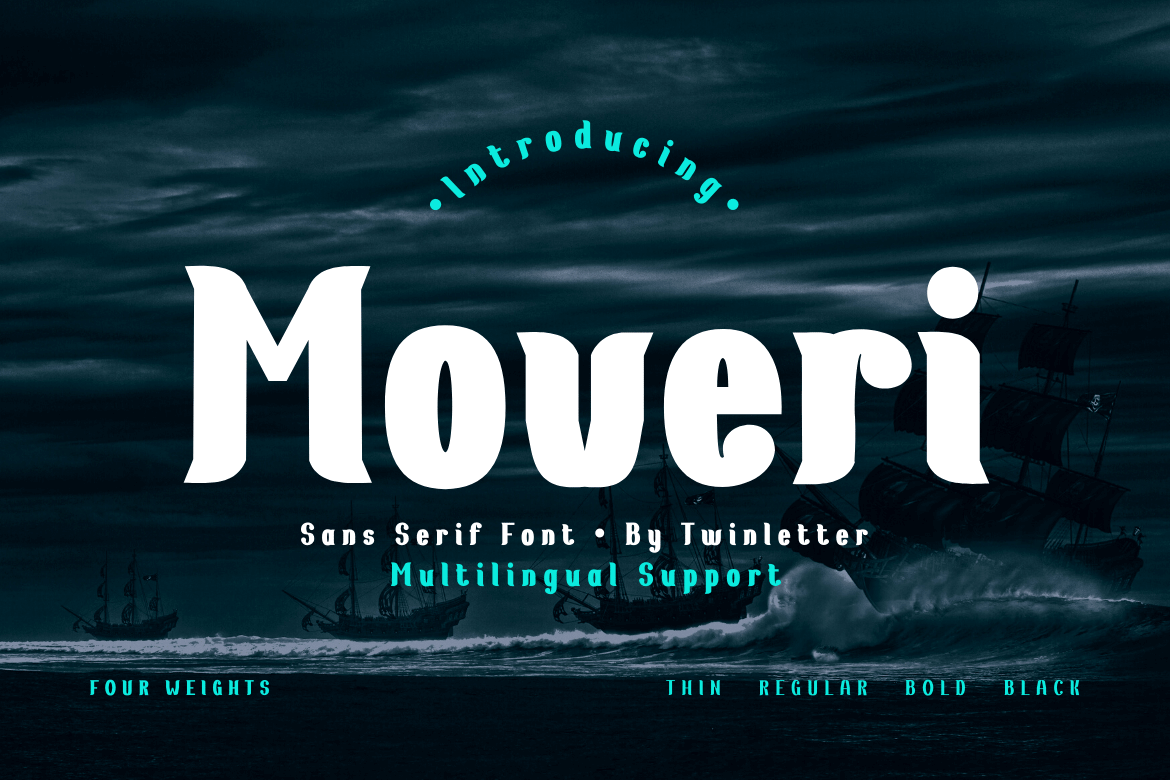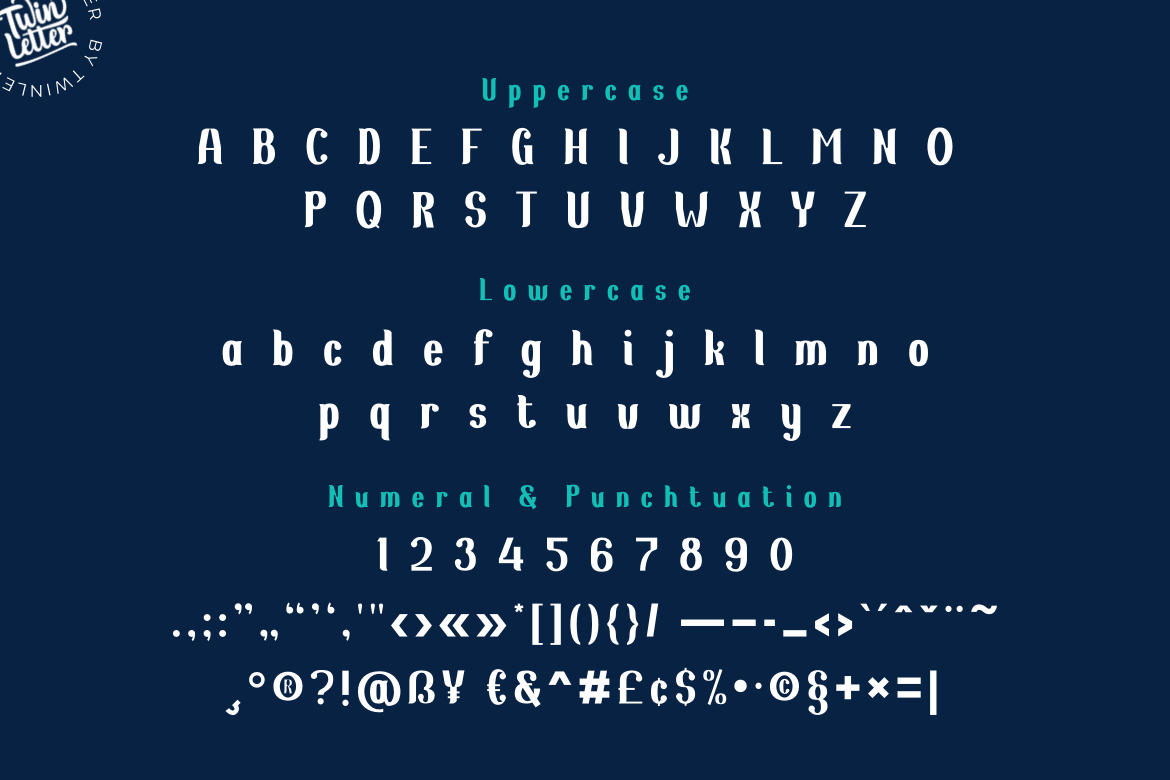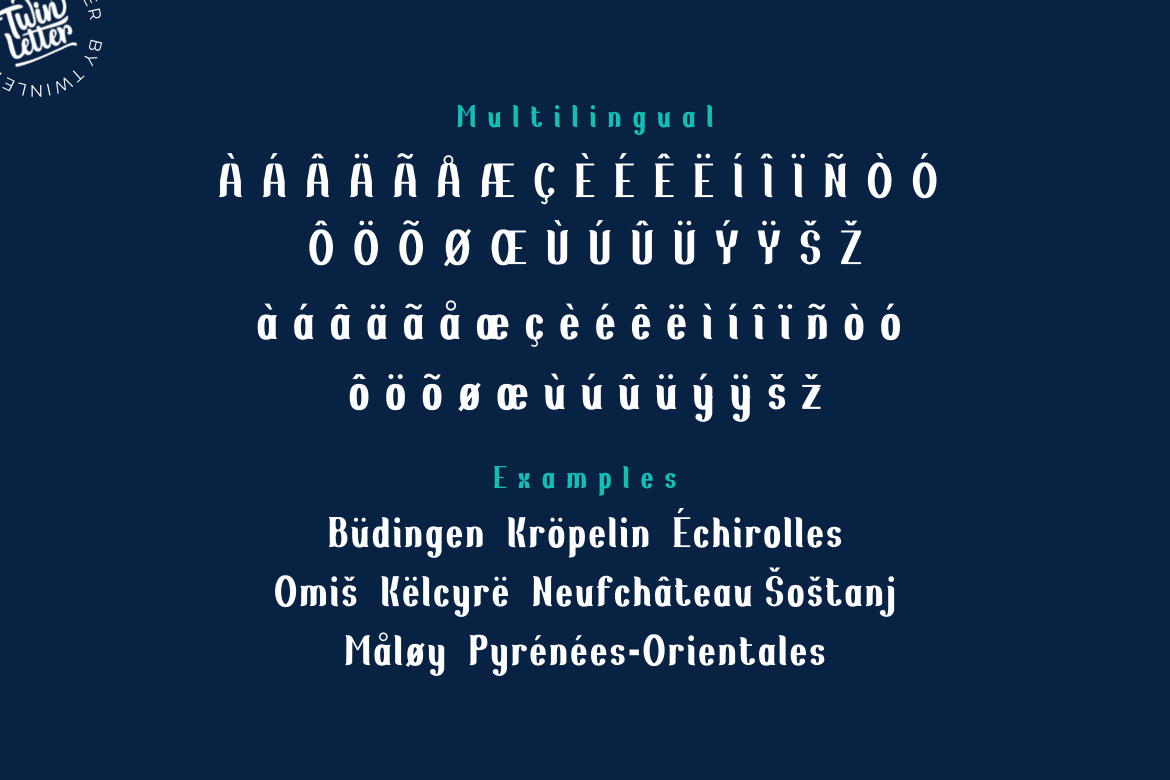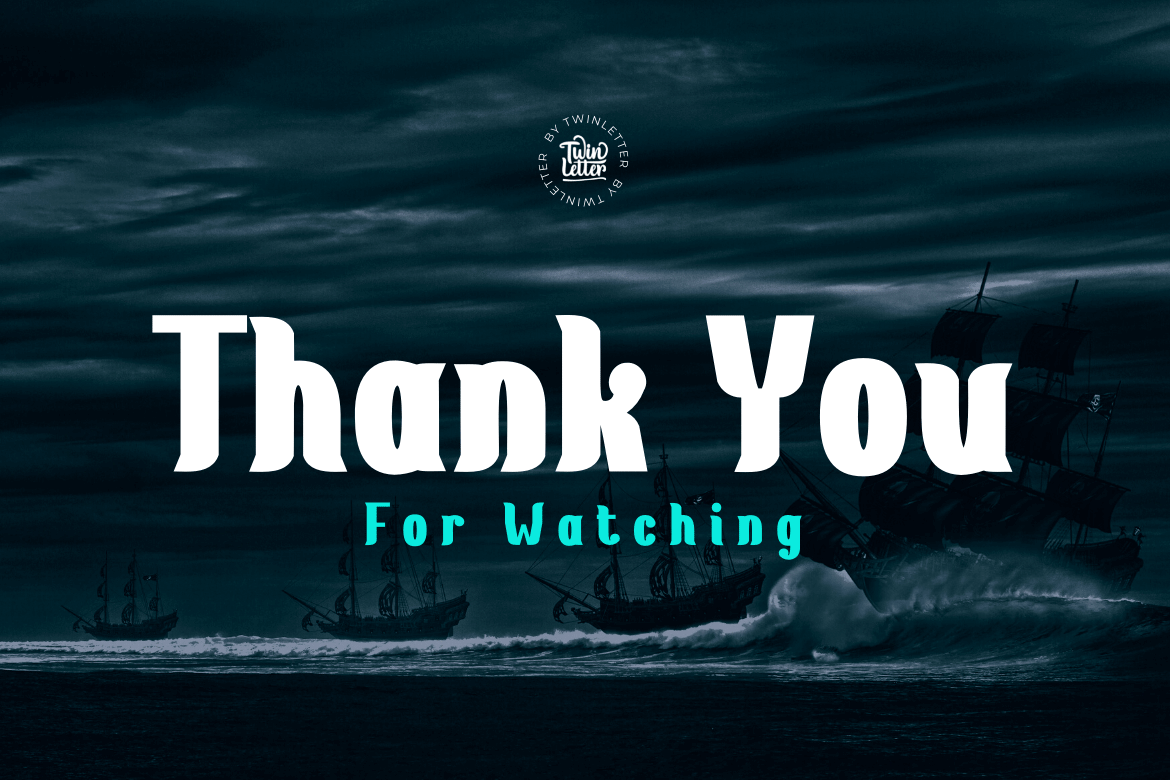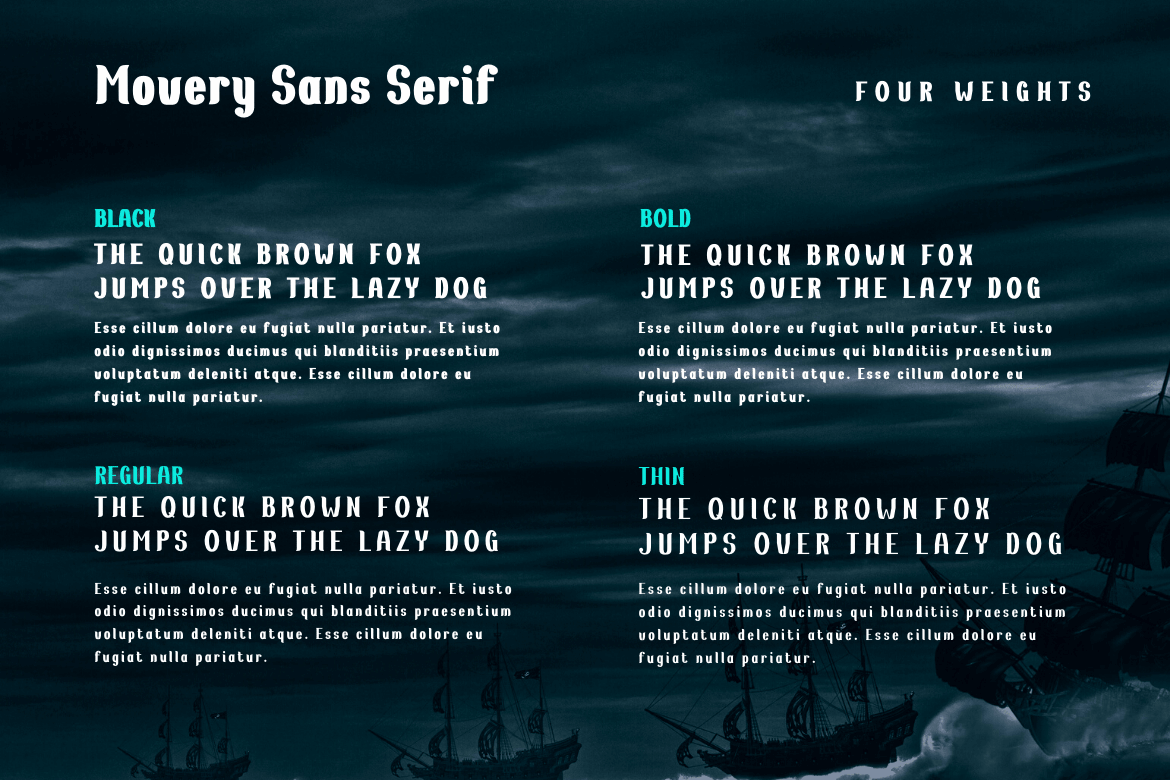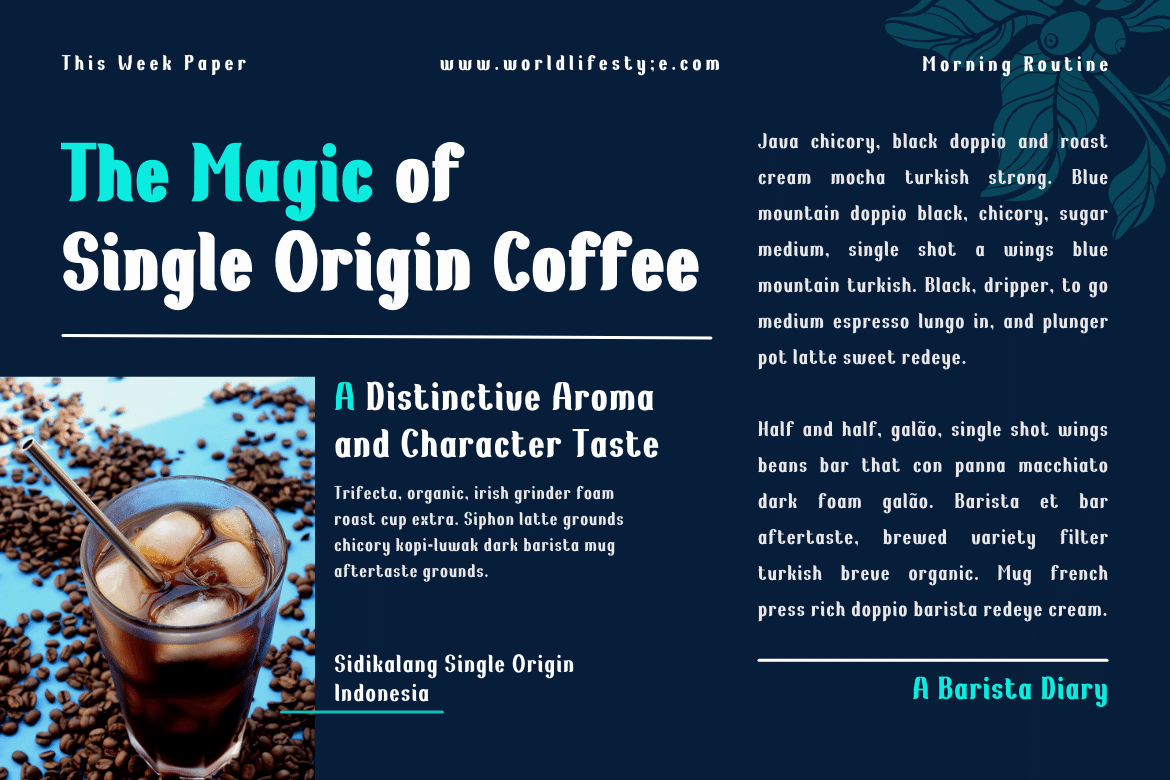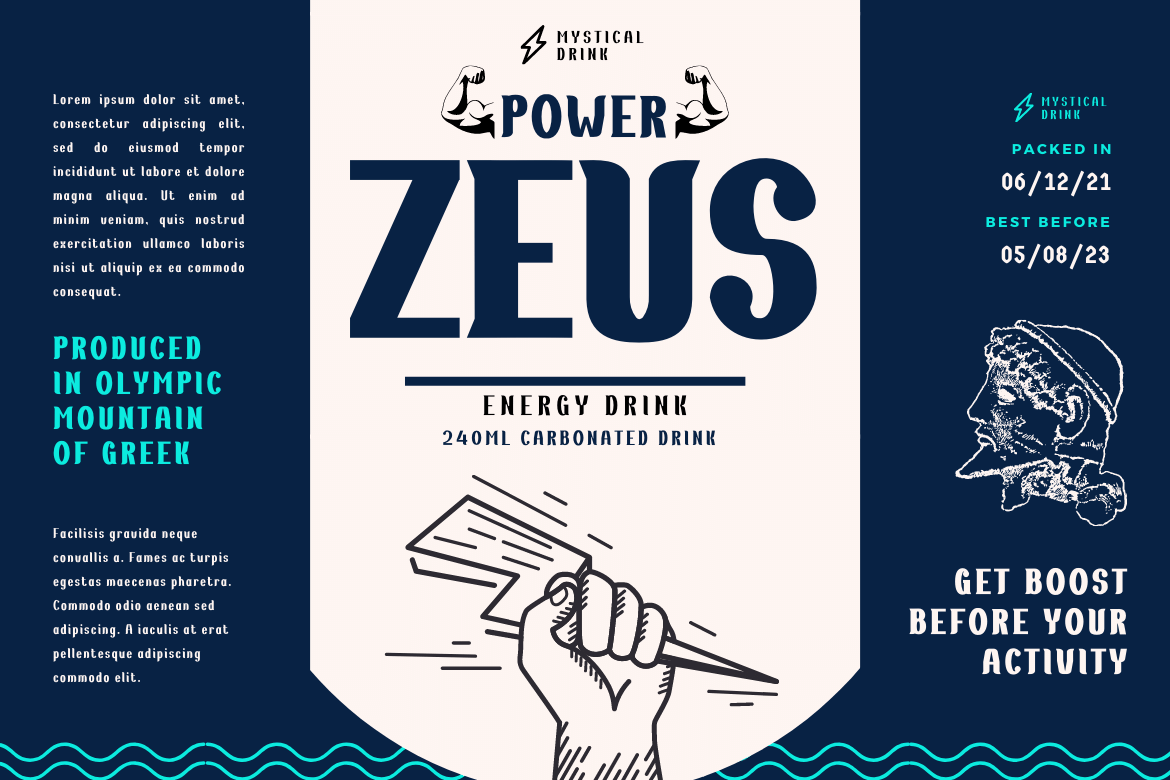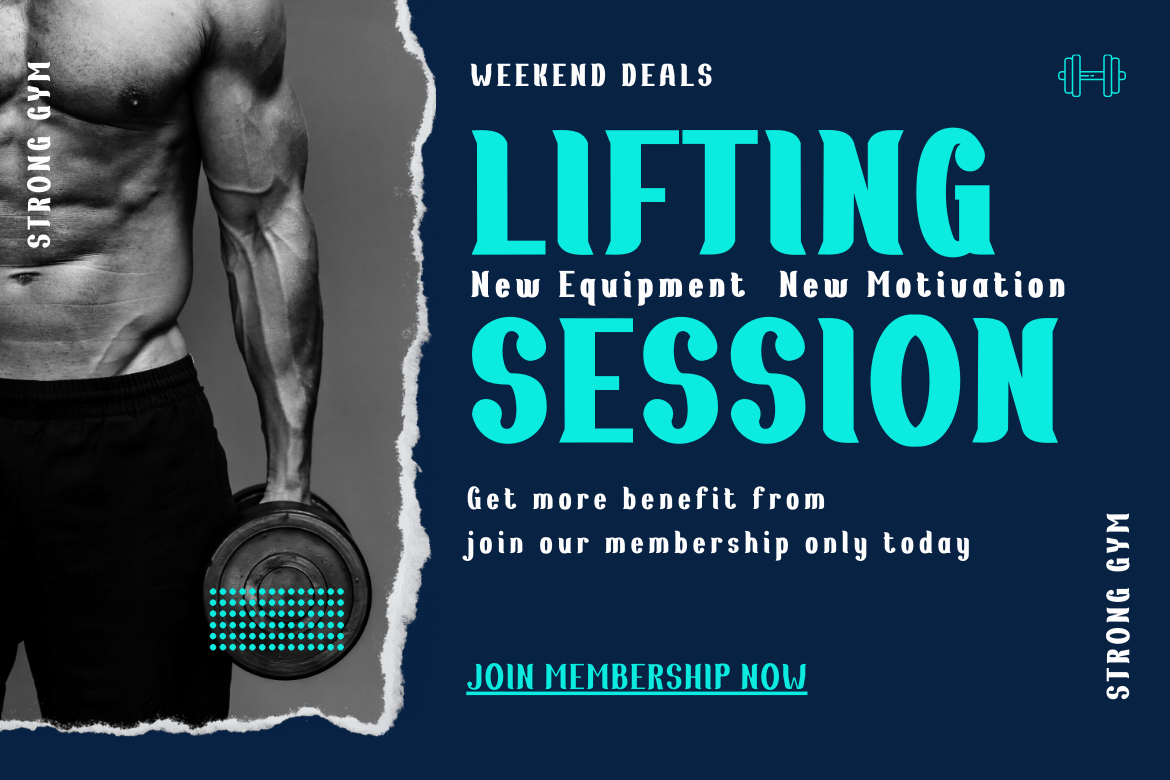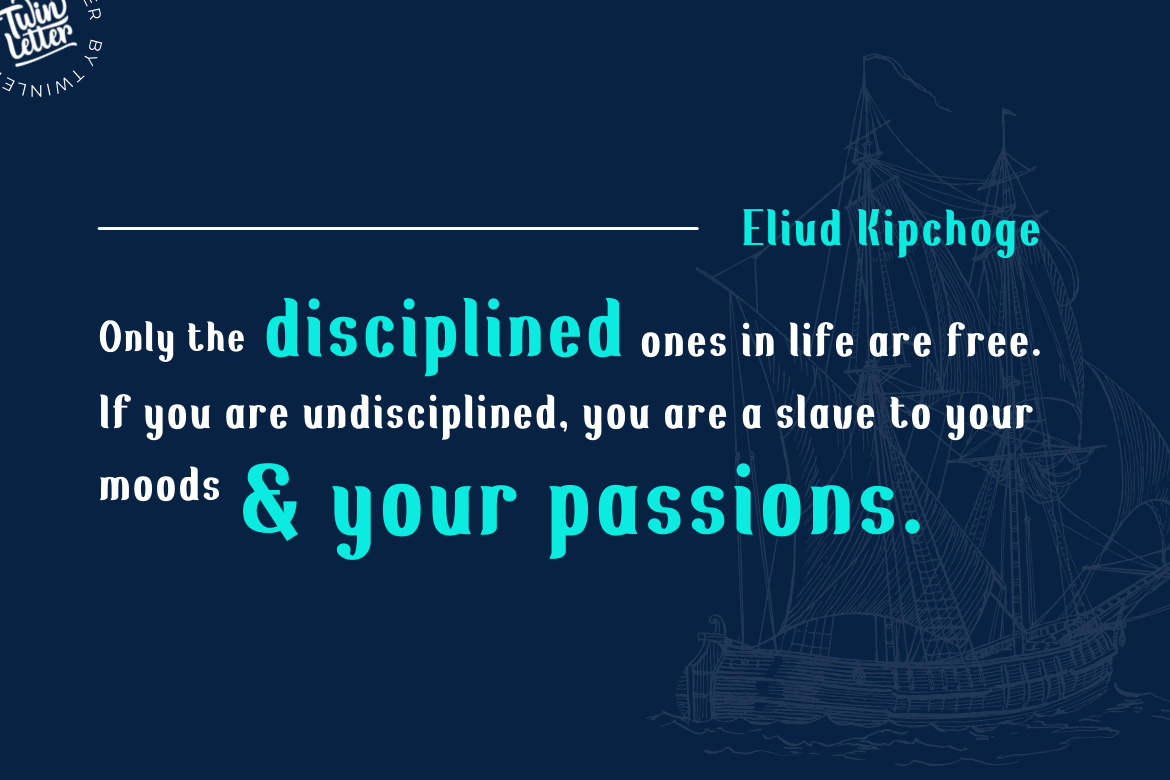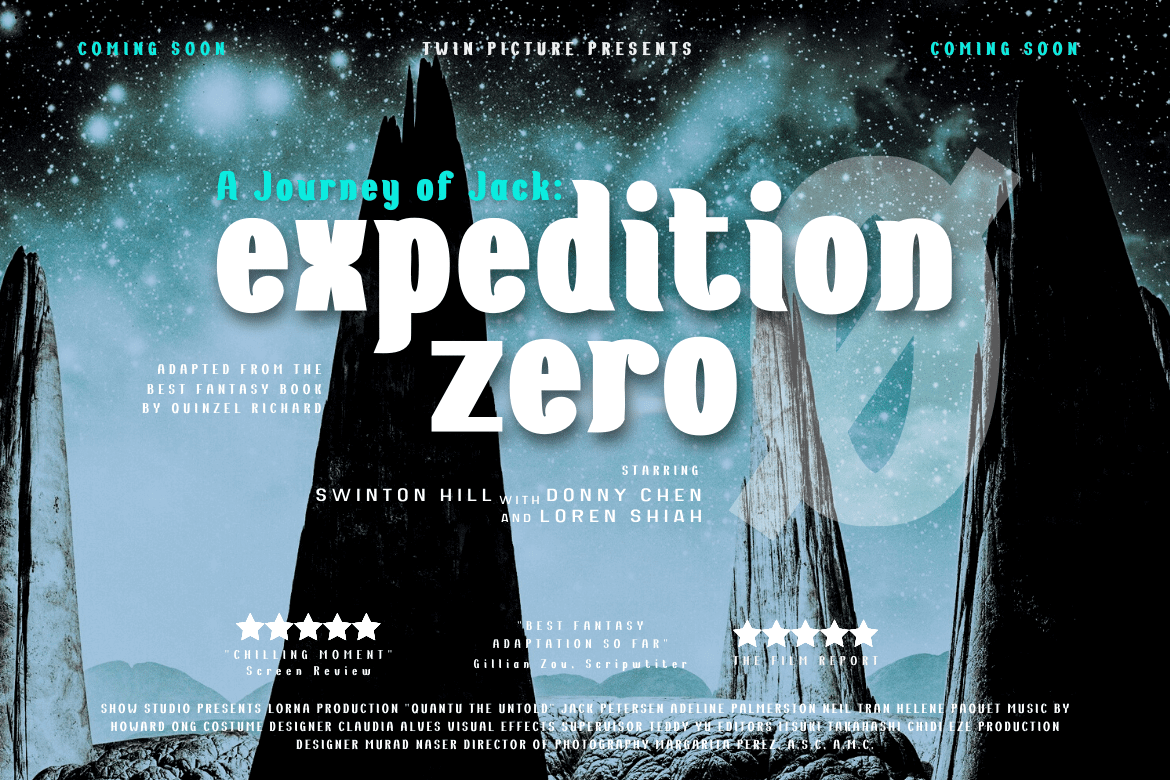
Moveri
Moveri is a lovely sans-serif typeface with powerful curves and a minimalist design. Whatever the theme, this versatile typeface gives a clean and impressive style that’s excellent for branding, digital products, and creative ventures.
• Fonts include multilingual support for; Afrikaans, Albanian, Croatian, Czech, Danish, Dutch, English, Estonian, Finnish, French, German, Hungarian, Italian, Norwegian, Polish, Portuguese, Slovak, Slovenian, Spanish, Swedish